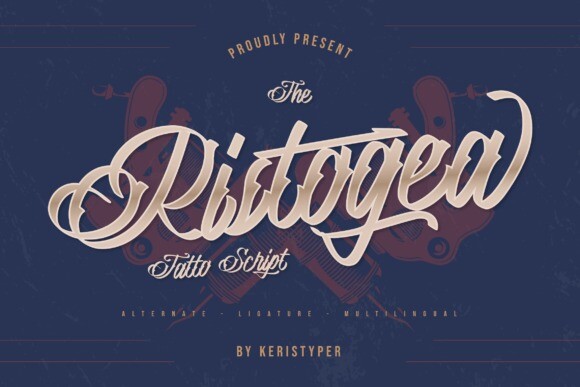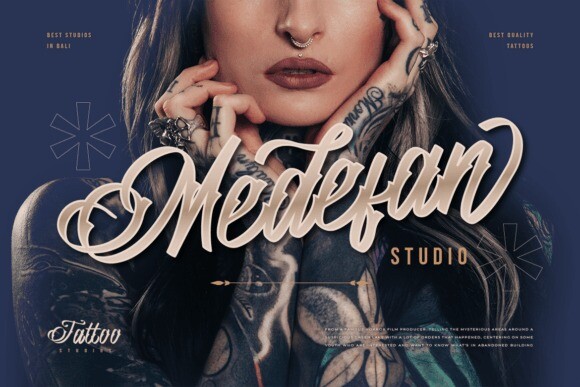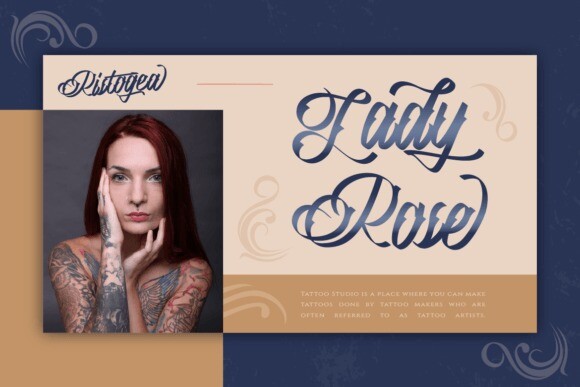
Ristogea Font
Ristogea is a script font inspired by tattoo lettering with a swirl curvy effect. This modern font is perfect for branding, tattoo studio logos, invitations, flyers, covers, posters, t-shirt printing, and more.